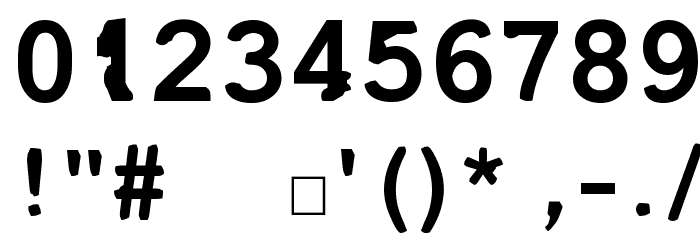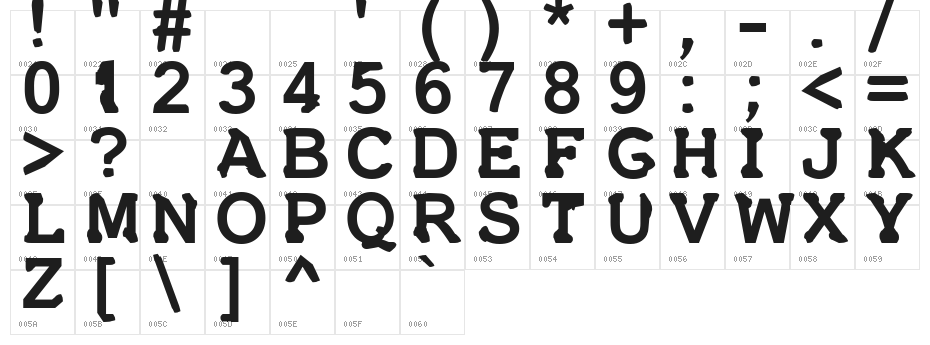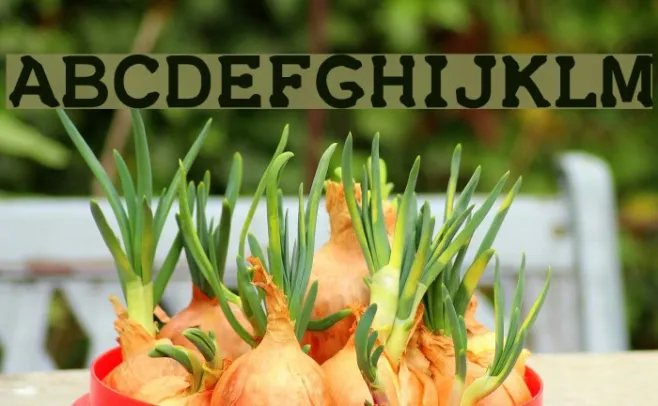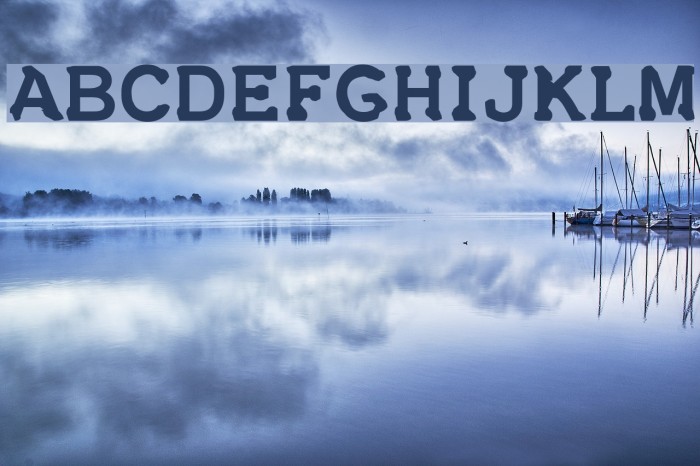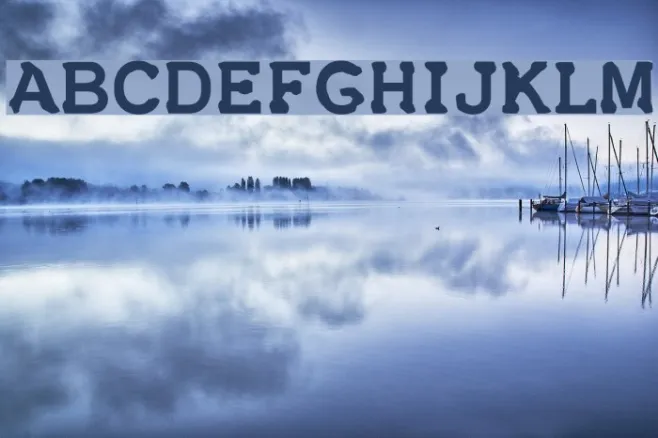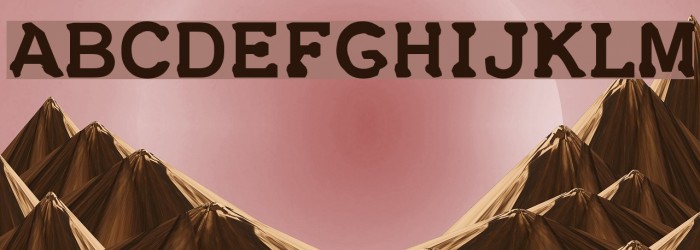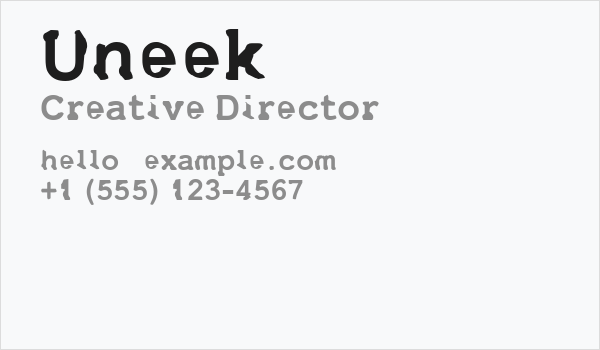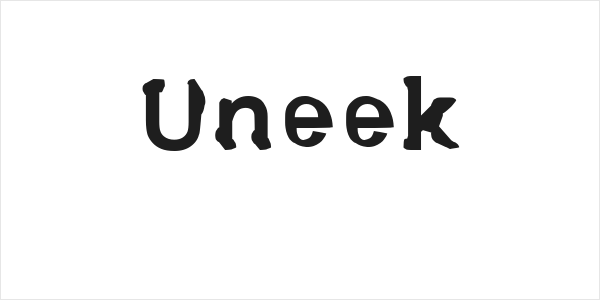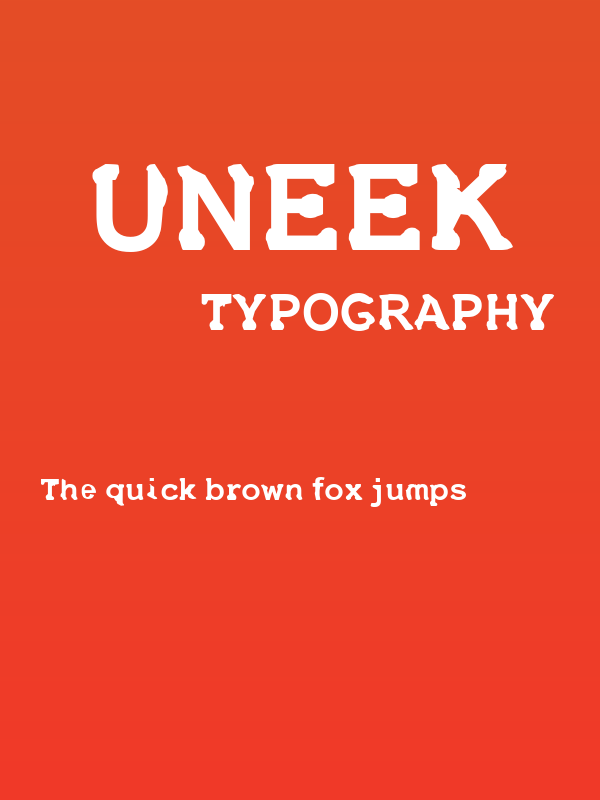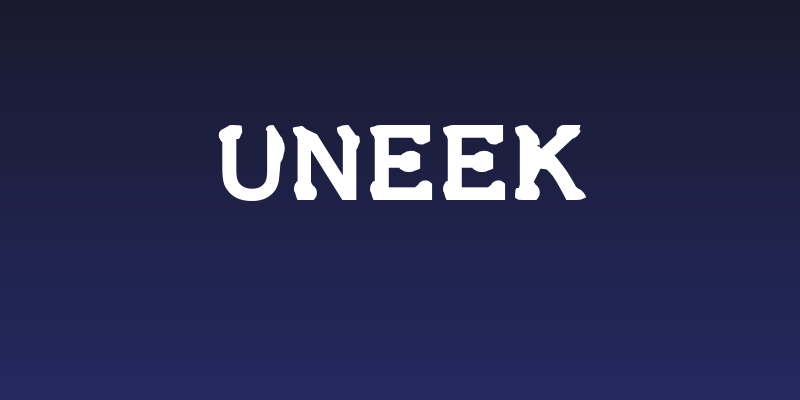
Uneek Font
Uneek Description
This font features a bold and playful design with a strong presence. The characters have a unique, slightly irregular shape that adds a quirky and informal touch. The uppercase letters are robust and well-defined, while the lowercase letters maintain a consistent style with rounded edges and a slightly condensed form. The numbers are clear and bold, making them highly legible. Special characters are designed to match the overall playful aesthetic, adding to the font's versatility. This font is ideal for projects that require a fun and engaging look, such as children's books, playful branding, or creative posters.
| Overall Style | Playful, Quirky, Informal |
| Proposed Projects | Children's books, playful branding, creative posters, informal invitations. |